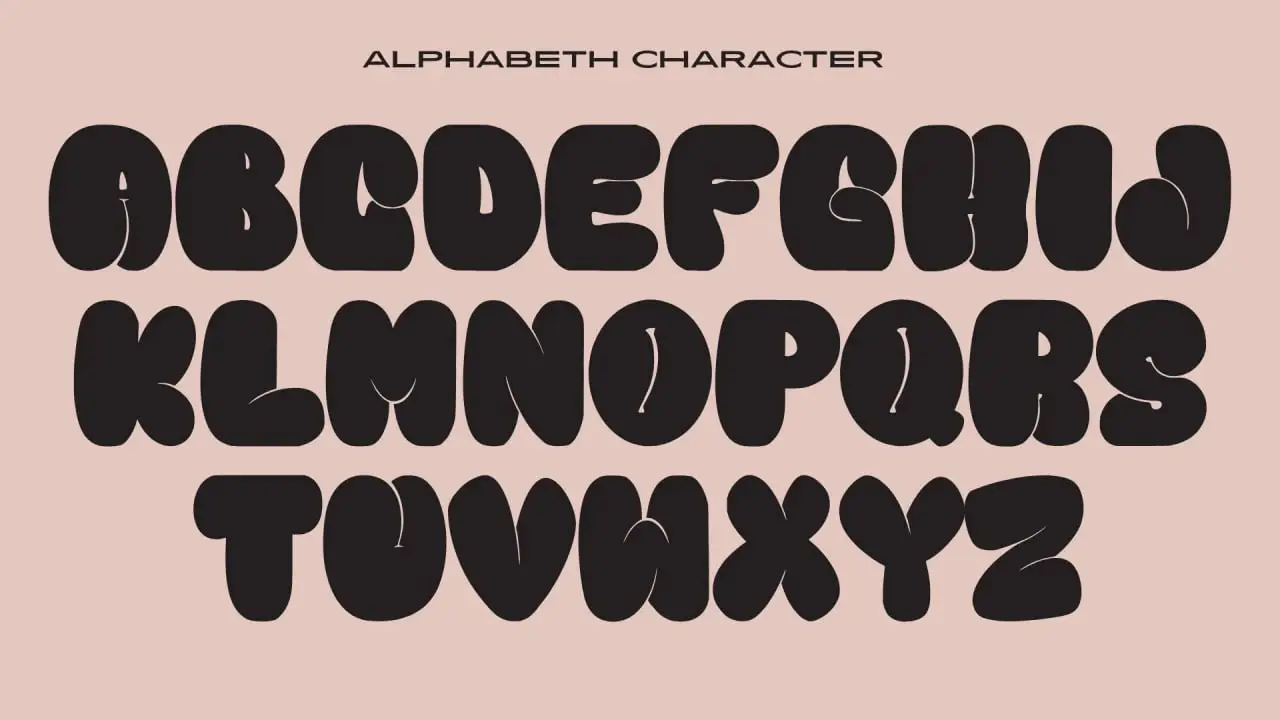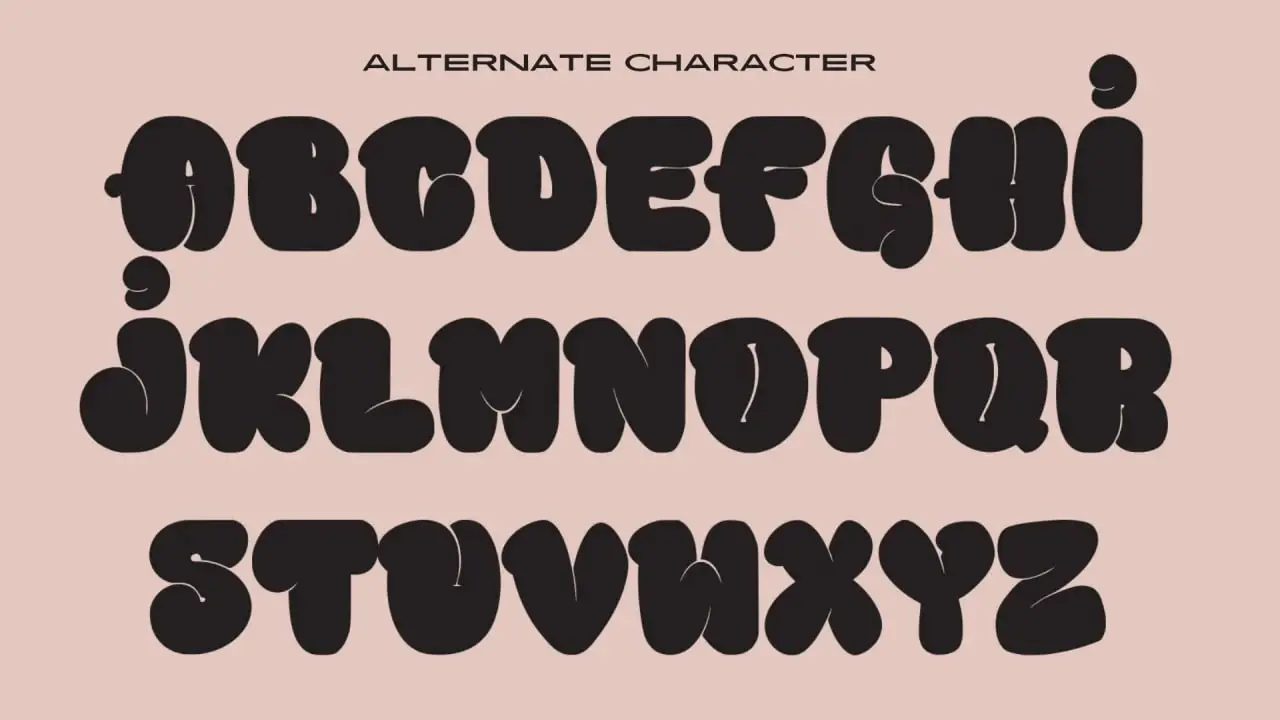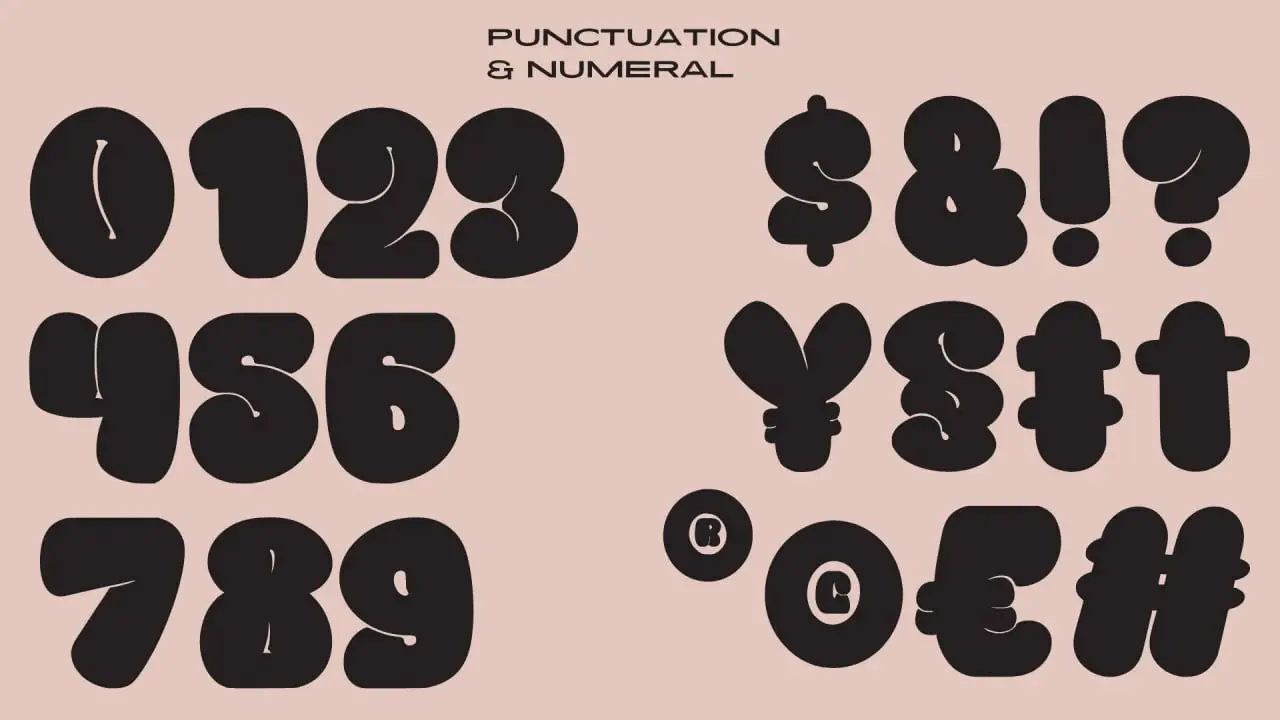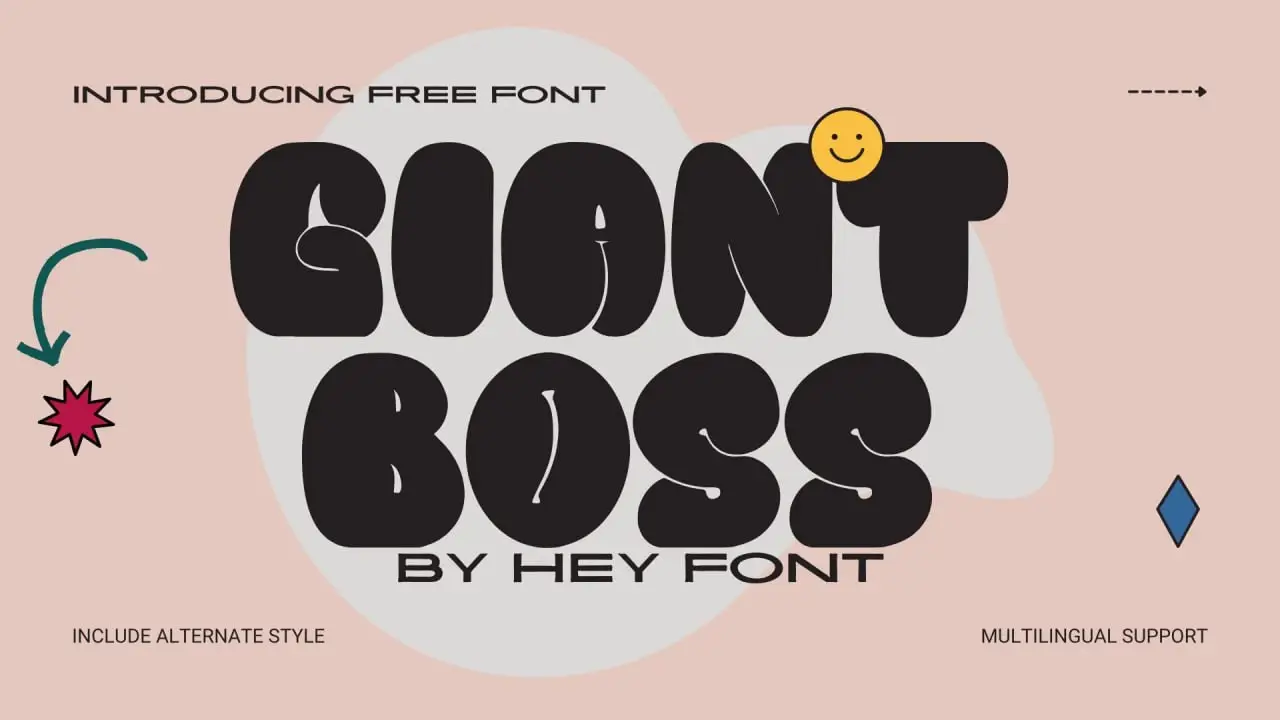
Giant Boss-Bubble Font By Heyfonts
The Giant Boss-Bubble Font by Heyfonts is a playful and bold typeface designed to make a statement. With its unique bubble-like curves and thick strokes, this font is perfect for a variety of creative projects.
• Fun and engaging bubble style
• Uppercase and lowercase letters included
• Numerals and punctuation for complete text support
• Great for web design and user interfaces
• Perfect for print projects like posters and flyers